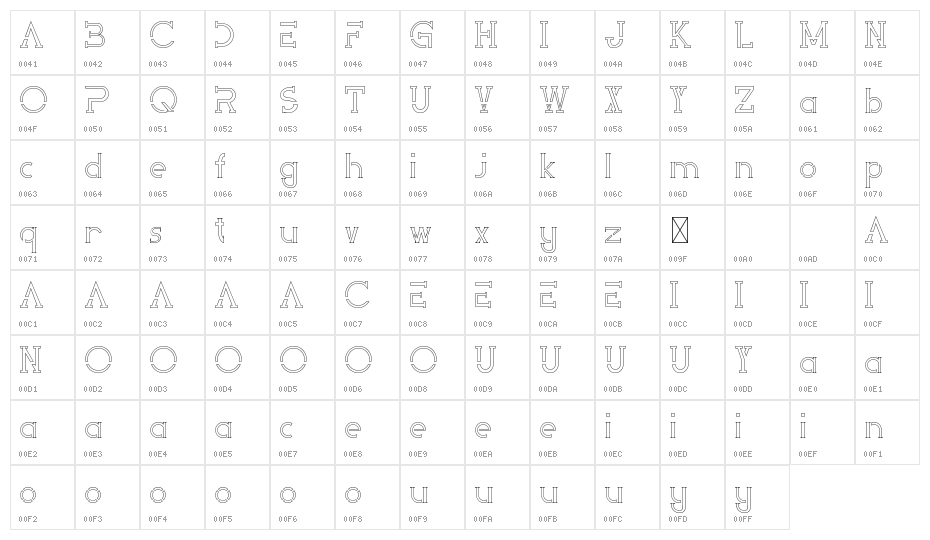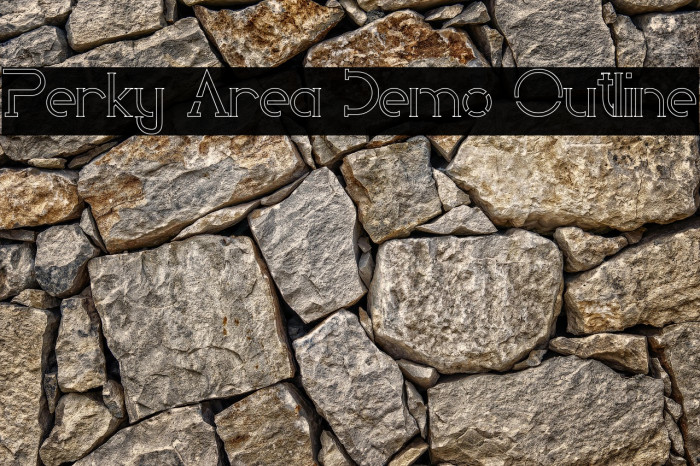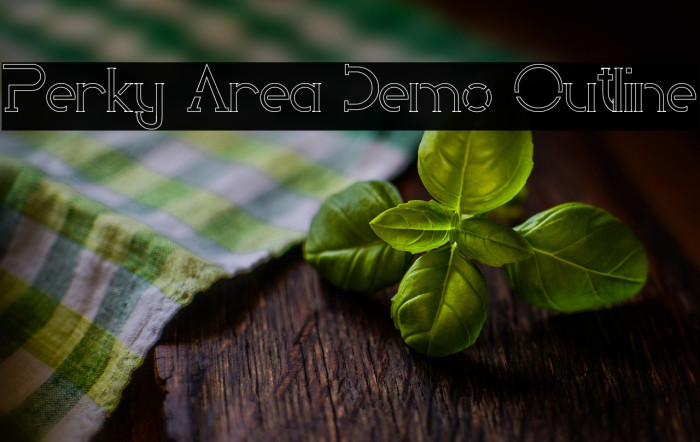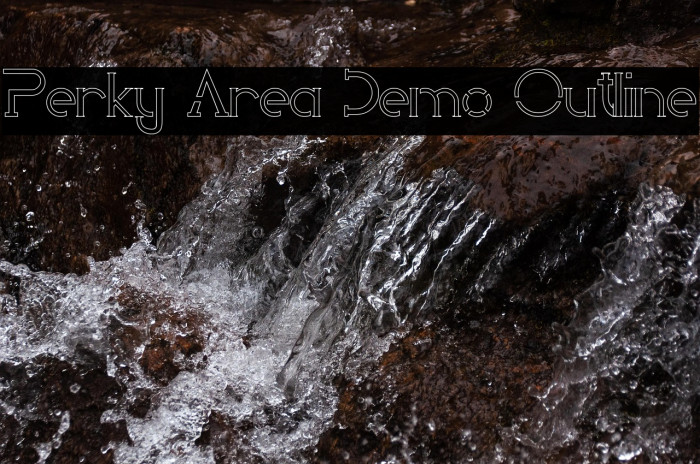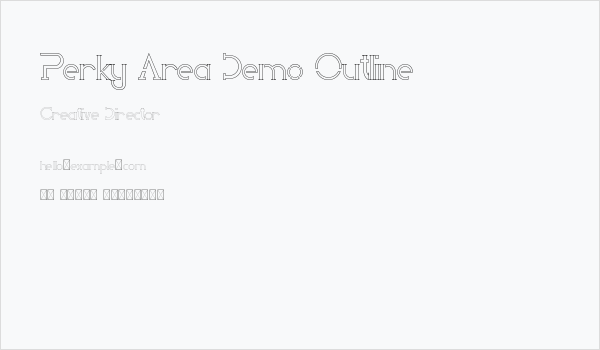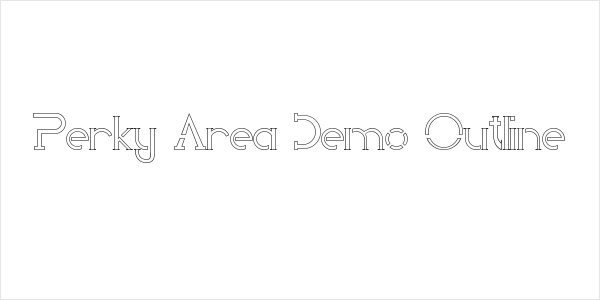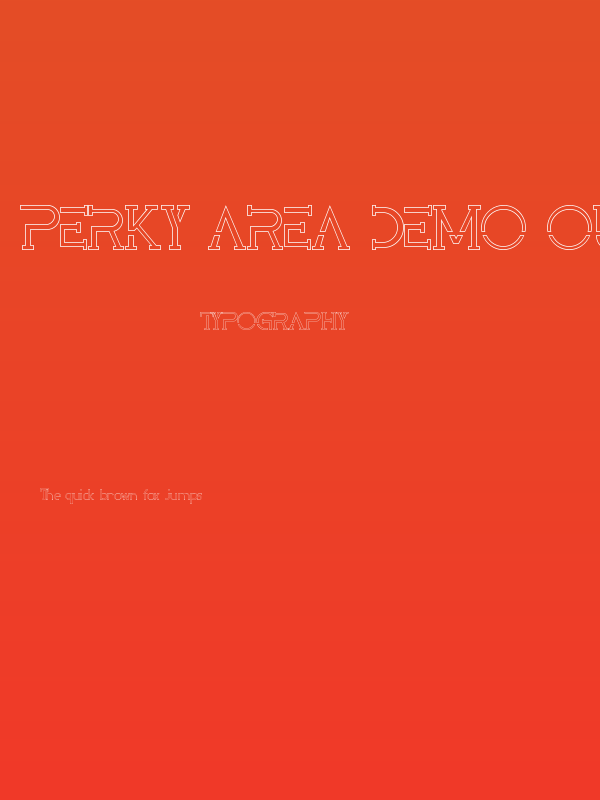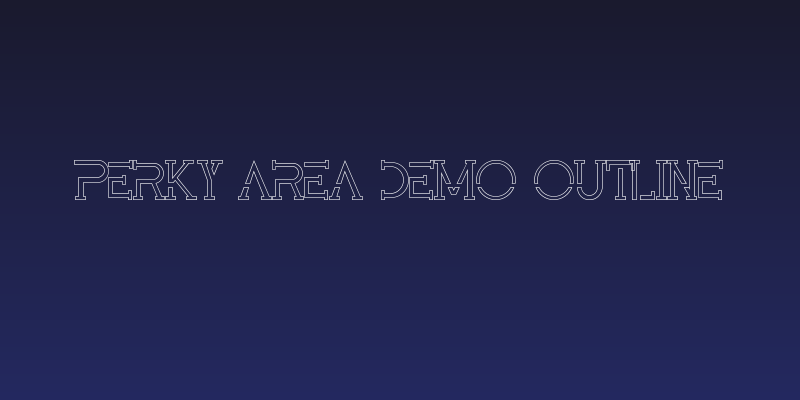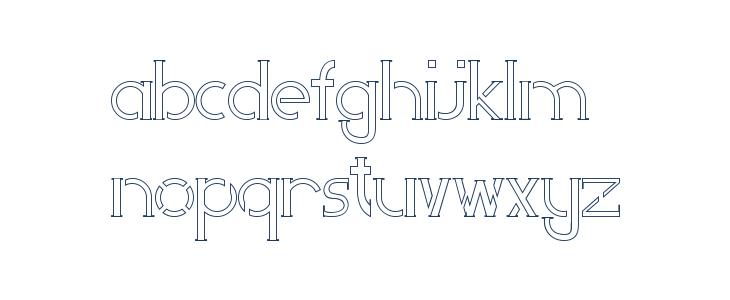
Perky Area Demo Outline Font
Perky Area Demo Outline Description
This font features a unique outline style with a modern and geometric aesthetic. The uppercase letters are bold and structured, with distinct angular cuts and a sense of symmetry. The lowercase letters maintain the geometric theme but with softer curves, providing a nice contrast to the uppercase. The numbers and special characters follow the same design principles, ensuring consistency across the font. The outline nature of the font gives it a light and airy feel, making it suitable for creative and artistic projects. The spacing between characters is normal, allowing for readability while maintaining the font's decorative appeal.
| Proposed Projects | Ideal for posters, logos, branding, and any project that requires a modern and artistic touch. |